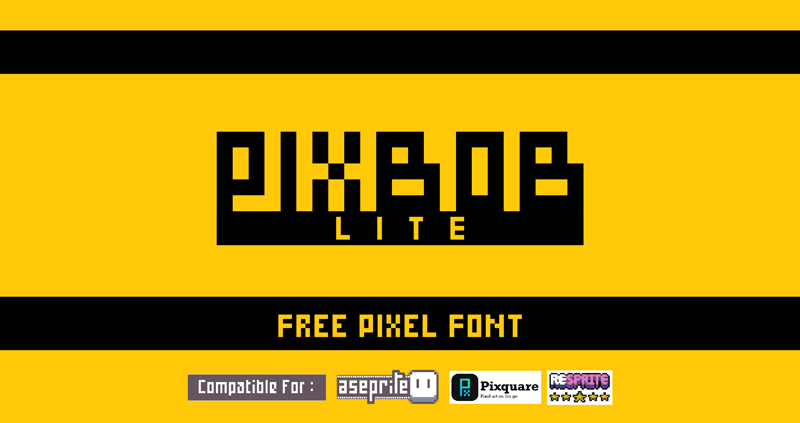
PixBob Font is a font that is designed special for Pixel art , this font is designed cleanly and precisely so it's easy to read, looks elegant and easy to apply to your pixel project. Also this font is suitable and easy to use in Aseprite and can also be used in pixel apps on iPad like Pixquare and Reseprite, to apply the font you just need to select the PixBob font and set the Size to 10, and multiples of 10 such as 20, 30, 40 etc. for a larger font size For more details, you can see the tutorial here https://youtu.be/ueu2w73W9Os This font is also suitable for use as a design description because all the elements are complete, starting from uppercase, lowercase, numbers, punctuation and an 'regular' and 'bold' font, so your description will remain legible and elegant. Link to buy on Our Store : On Itch io : https://pixbob.itch.io/ On Gumroad : https://bibbob.gumroad.com/ |